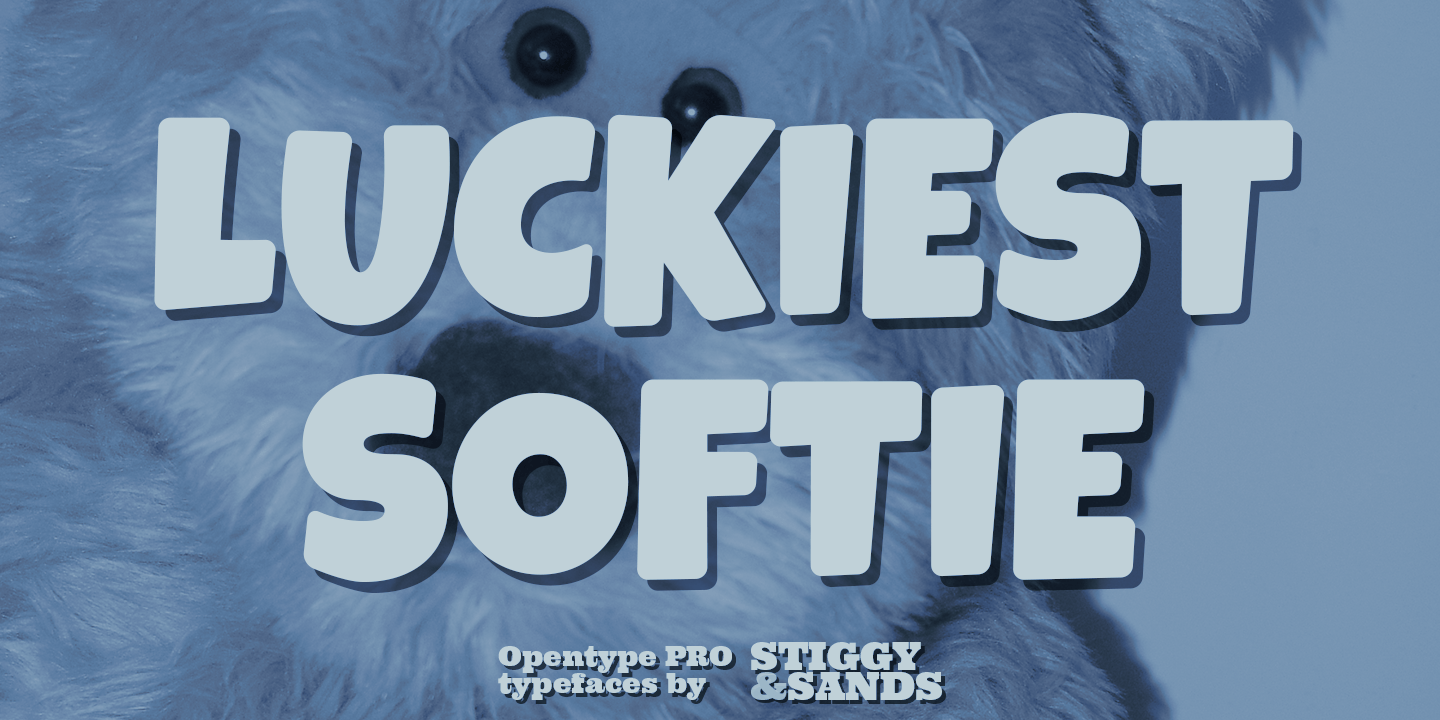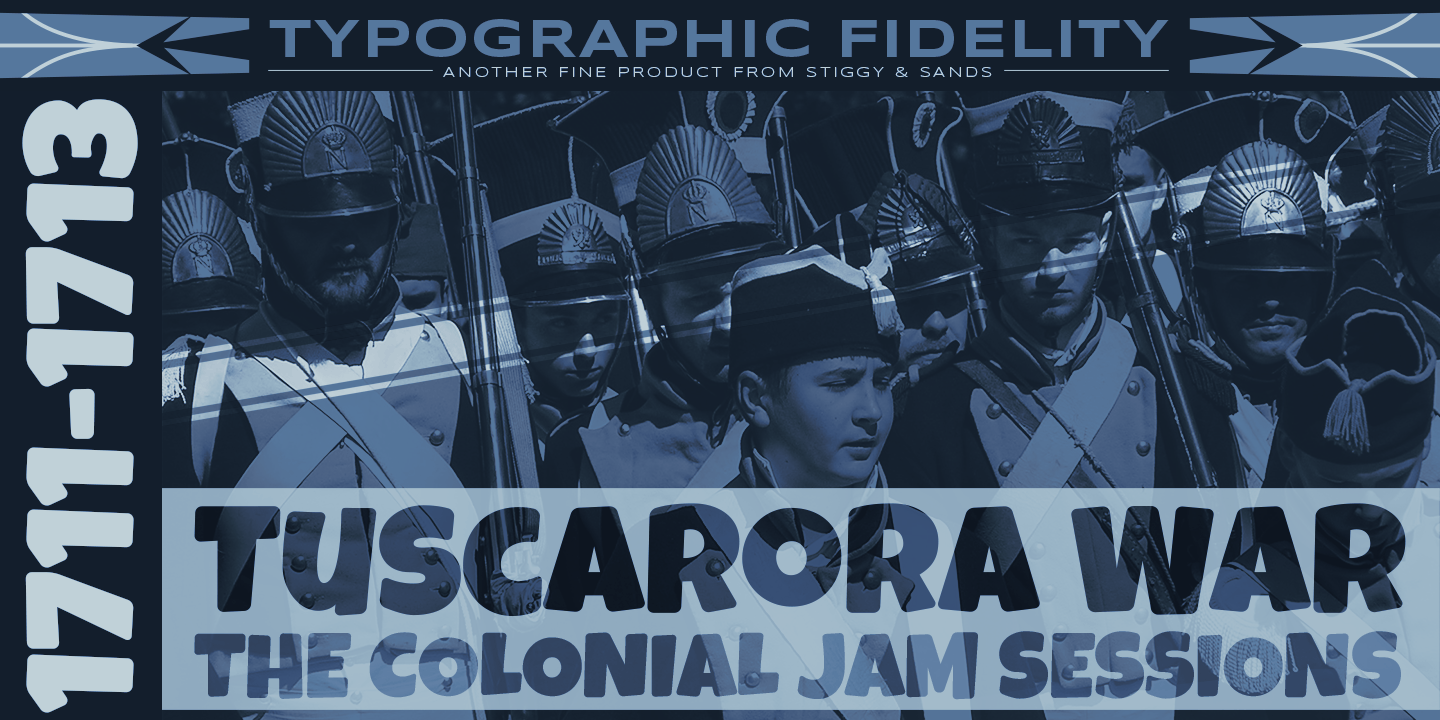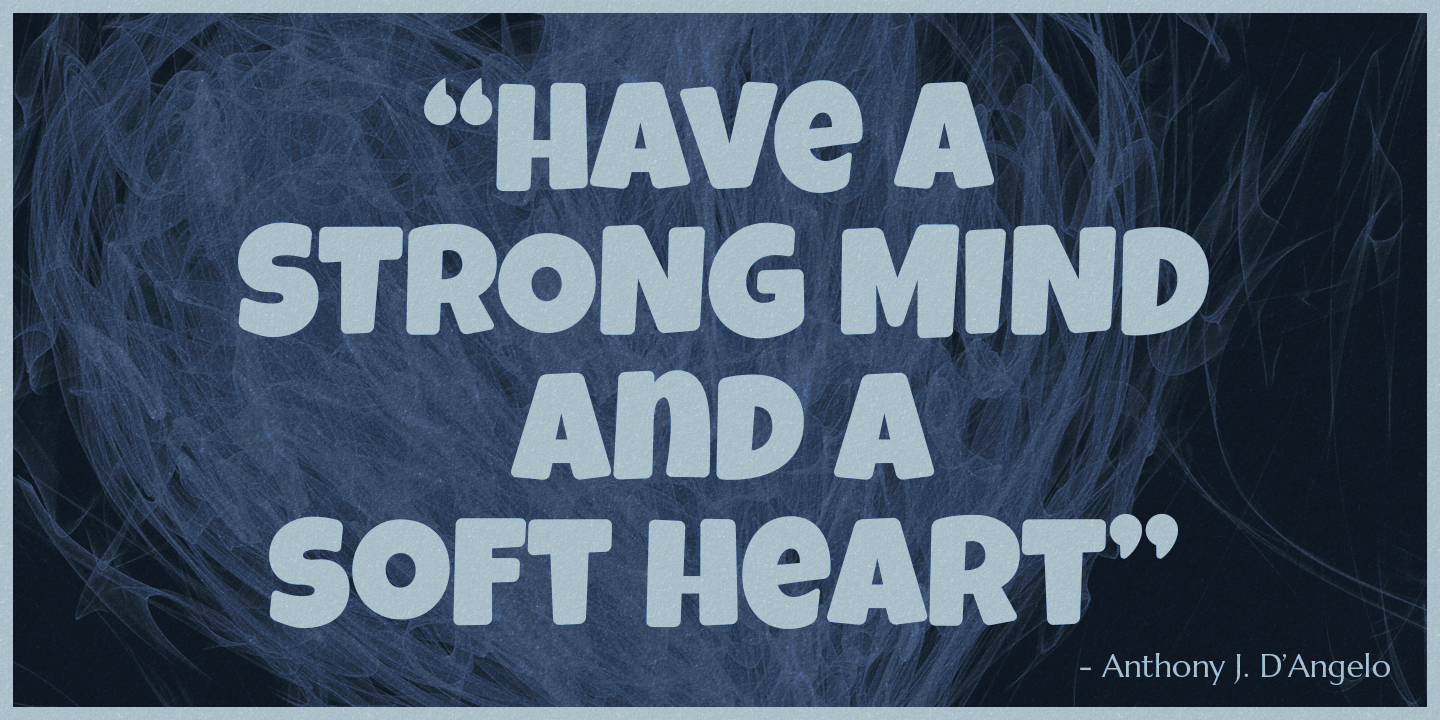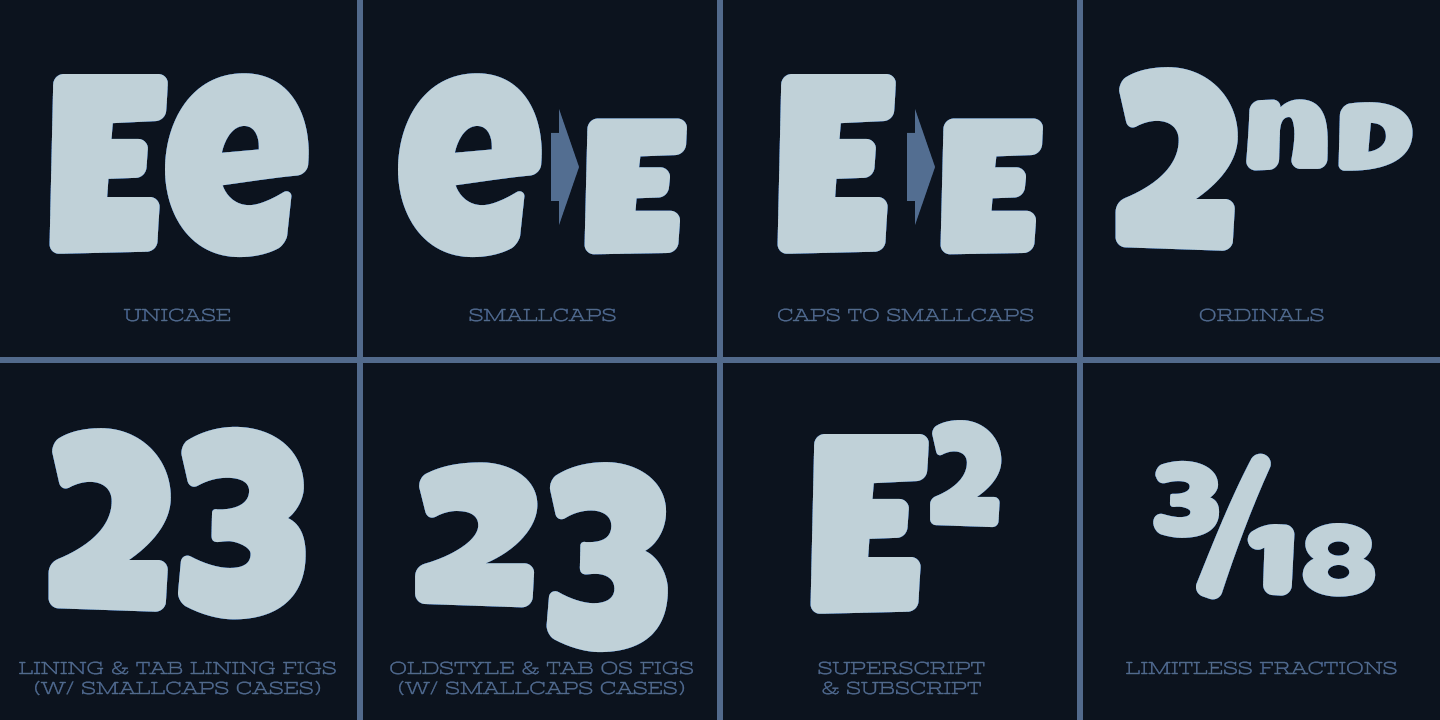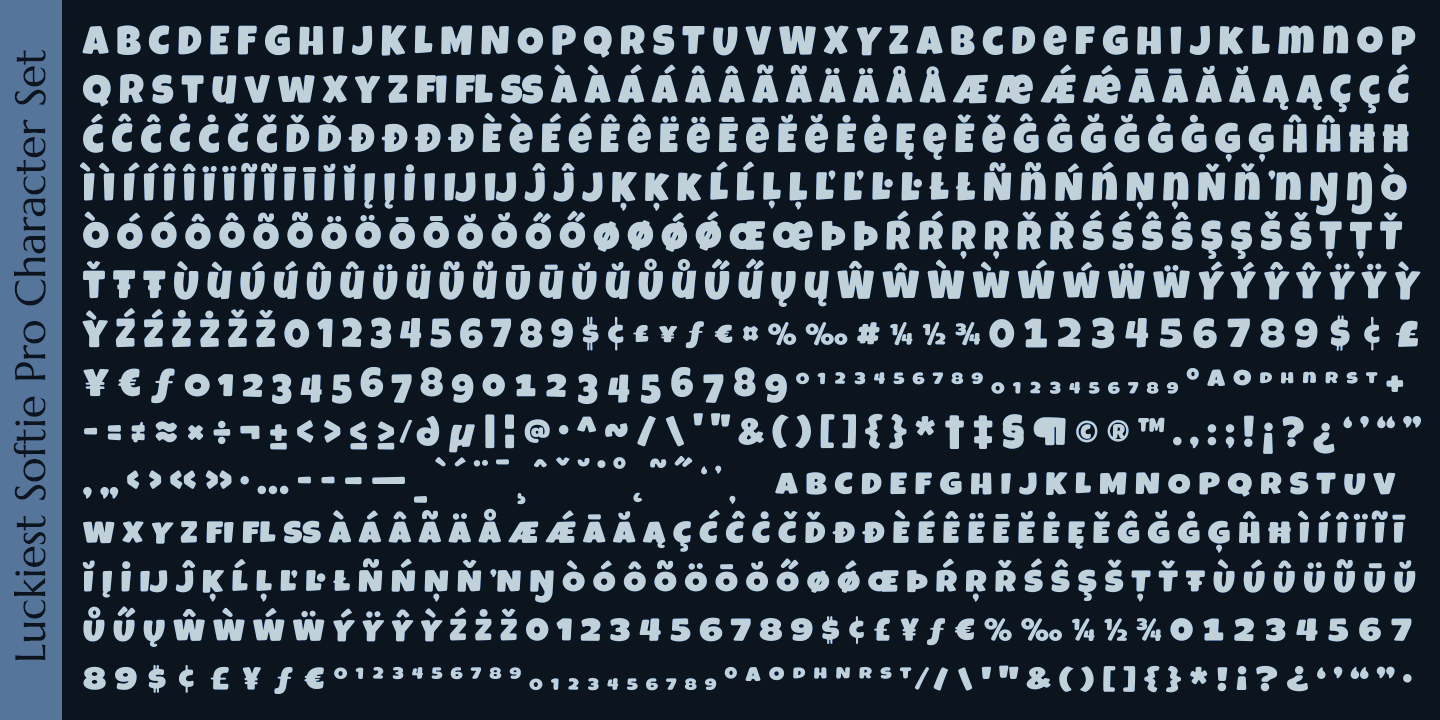
Luckiest Softie Pro
Font Family by Stiggy & Sands
Our Luckiest Softie Pro is a softened variation of our Luckiest Guy Pro typeface, inspired by hand-lettered vintage 1950's advertisement. The charm of the original typeface is enhanced with softened corners to give the typeface a more cuddly charisma.
Opentype features include:
• Small Caps
• Full set of Inferiors and Superiors for limitless fractions.
• Tabular, Proportional, and Oldstyle figure sets (along with SmallCaps versions of the figures).
• Stylistic Alternates for Caps to SmallCaps conversion.